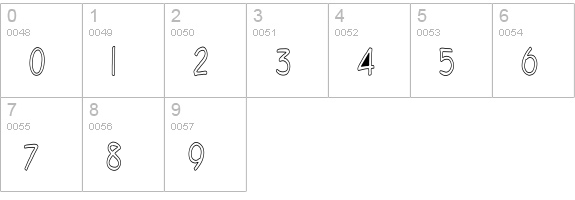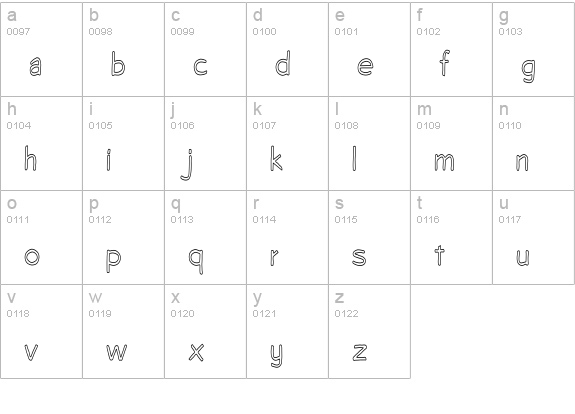
Diego1HC font is a modern and stylish typeface that exudes sophistication and elegance. Its sleek lines and graceful curves make it perfect for a wide range of design projects, from branding to editorial work. This versatile font offers a unique blend of classic and contemporary elements, making it a must-have for any designer looking to make a statement. Best of all, Diego1HC font is completely free to download at FontsMarket.com. This means you can add this stunning font to your collection without breaking the bank. Whether you're working on a personal project or a client commission, Diego1HC font is sure to elevate your designs to the next level. Don't miss out on this opportunity to enhance your typography toolkit with this beautiful and free font!